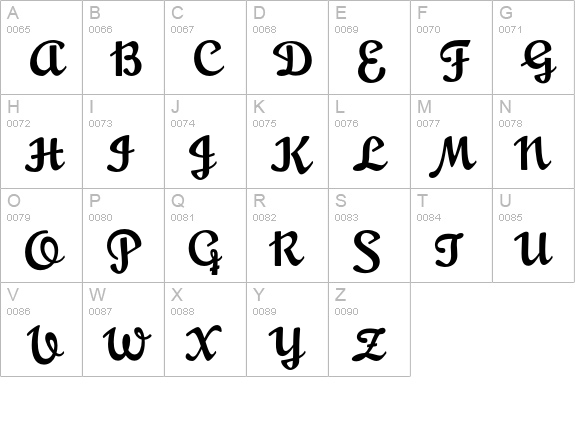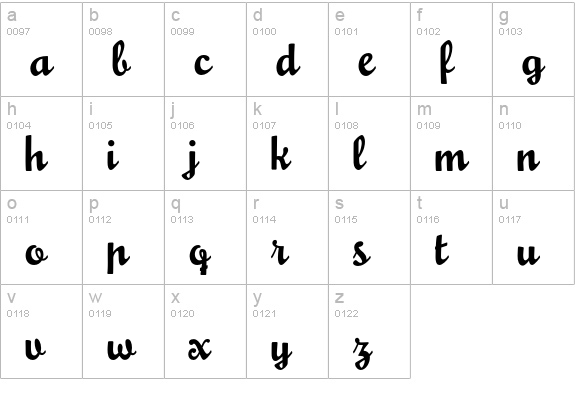
MousseScript-Regular Font Details
MousseScript-Regular is the standard, neutral variant in the MousseScript typeface family \xE2\x80\x94 well suited to general body text, paragraphs, and standard typographic work.
The MousseScript-Regular font is a stylish and elegant typeface that exudes sophistication and charm. With its delicate curves and graceful strokes, this font is perfect for adding a touch of class to any design project. Whether you're creating wedding invitations, branding materials, or social media graphics, MousseScript-Regular will elevate your work to the next level. What's even better is that MousseScript-Regular is available for free download at FontsMarket.com. Now you can enjoy the beauty and versatility of this stunning font without any cost. Don't miss out on this amazing opportunity to enhance your designs with MousseScript-Regular. Download it today and let your creativity soar!